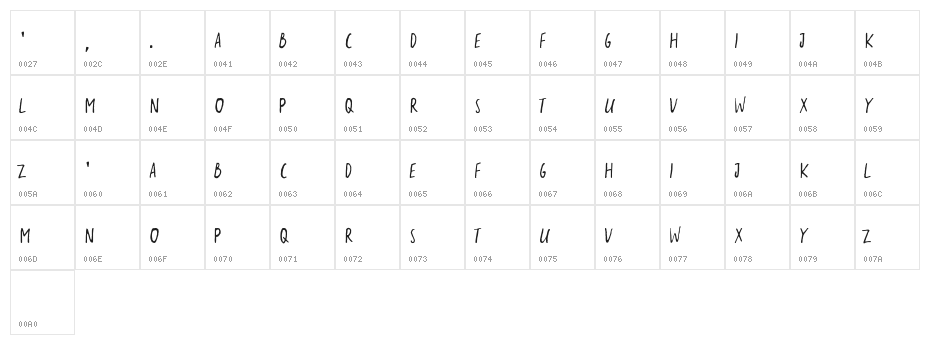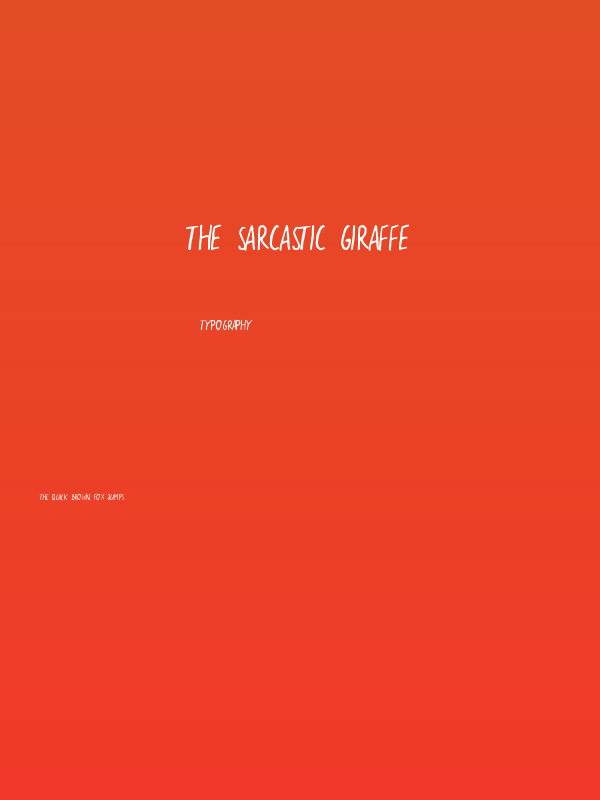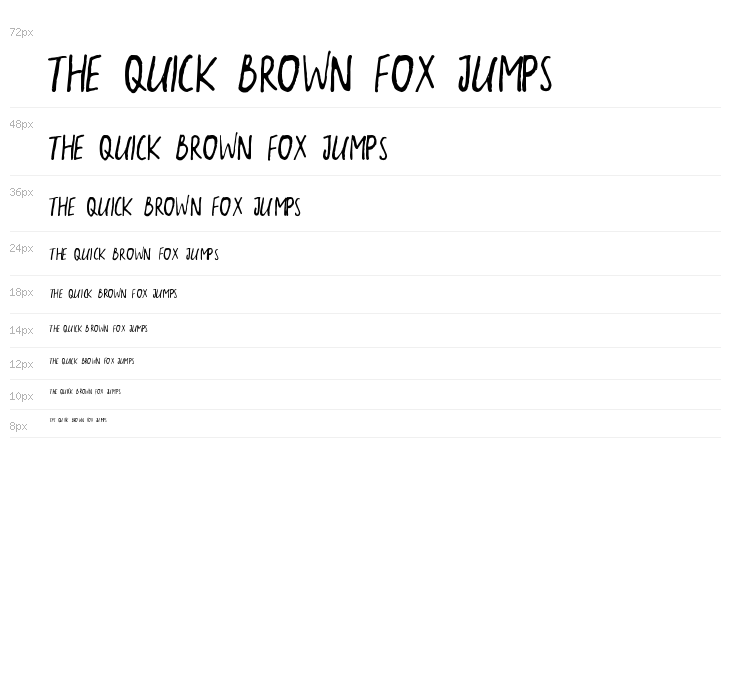
the sarcastic giraffe Font
the sarcastic giraffe Description
This font exhibits a playful and handwritten style, characterized by its irregular strokes and casual appearance. The letters have a slightly uneven baseline, adding to the informal and whimsical feel. The uppercase and lowercase letters maintain a consistent style, with a slight slant that suggests a natural, flowing handwriting. The characters are well-spaced, providing a clear and readable text even in smaller sizes. This font is ideal for projects that require a personal touch or a creative flair, such as greeting cards, invitations, or playful branding materials.
| Proposed Projects | Ideal for greeting cards, invitations, playful branding, and creative projects. |